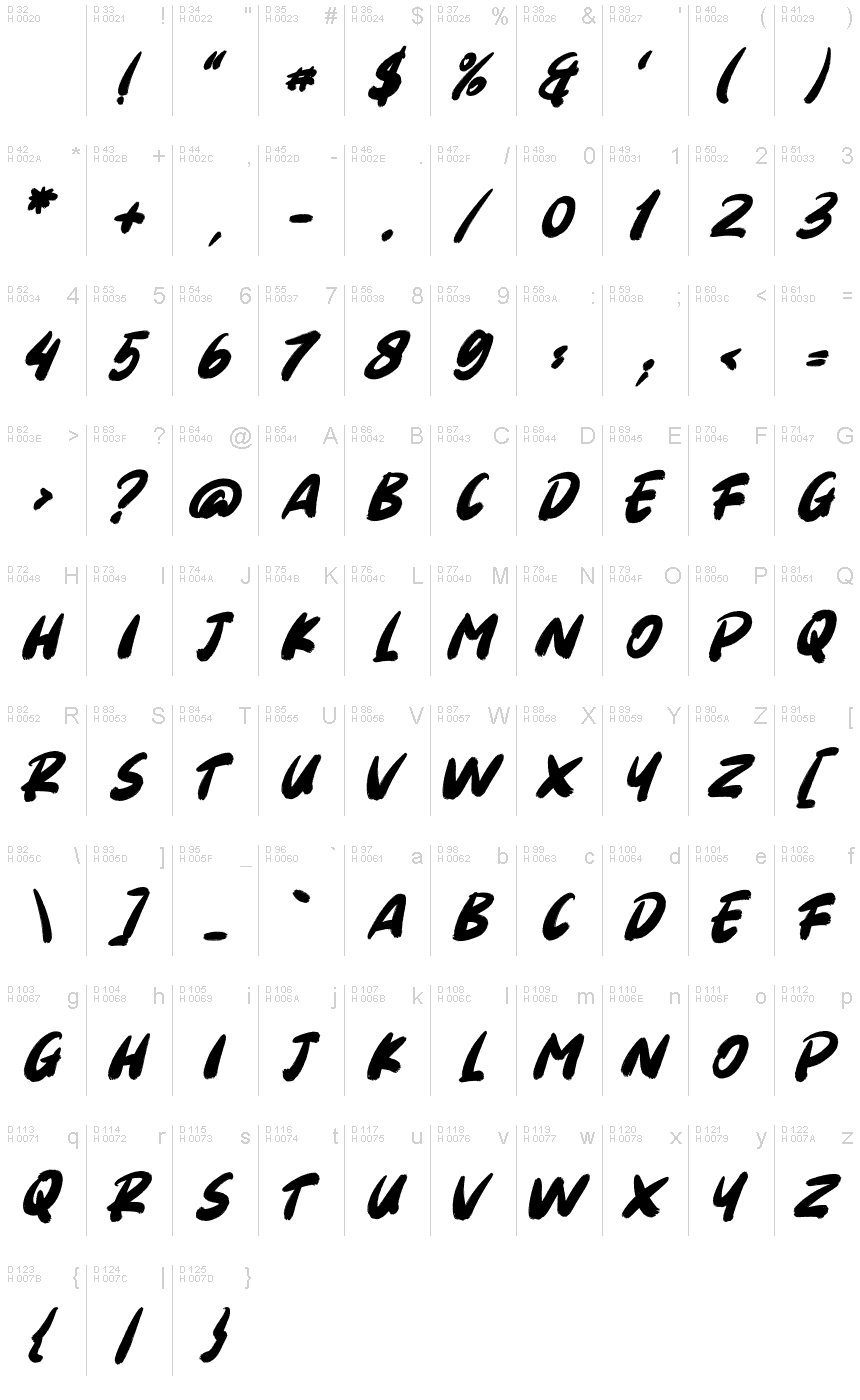
Rhodeport Slant_DEMO
Rhodeport! A handbrush font with all uppercase glyphs, regular and slant. Rhodeport font is suitable for branding, logotype, apparel, T-shirt, Hoodie, product packaging, quotes, flyer, poster, advertising, etc.
1. Uppercase characters
2. Multilingual support.
3. Numerals, punctuations, and alternates